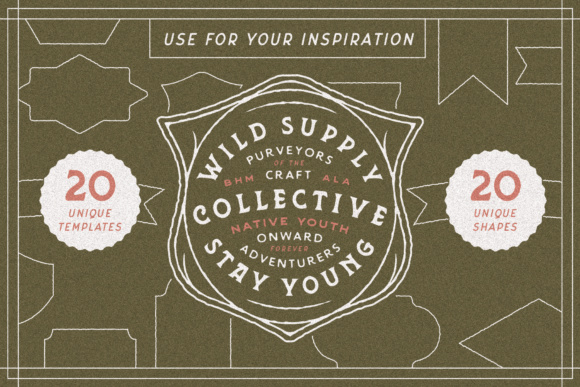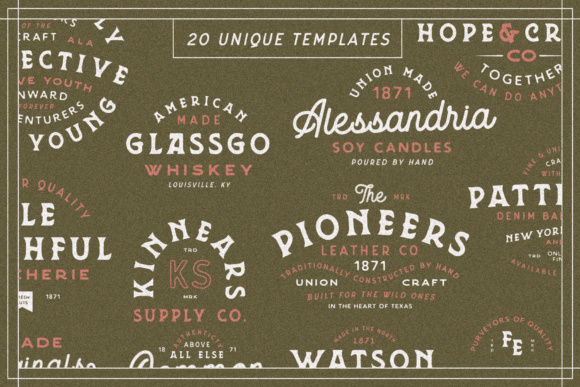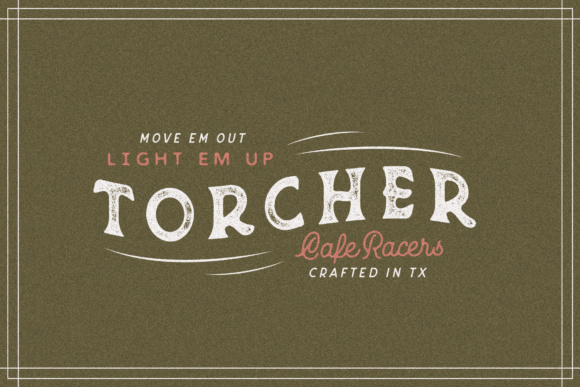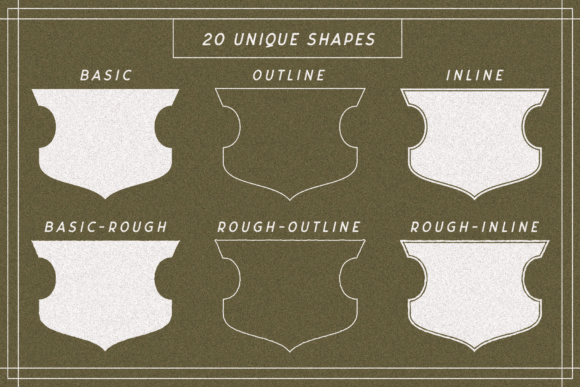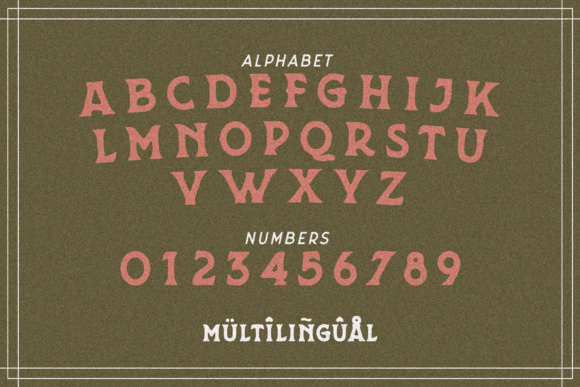
Introduction to Grit & Caliber Font Font
Fonts play a crucial role in design, and the Grit & Caliber Font font is a typeface that brings both character and versatility to any project. Whether you’re working on a branding project, a website, or a print design, the Grit & Caliber Font font offers a unique style that can elevate your work.
Grit & Caliber gives you the tools you need to create vintage-inspired designs.
The main font is crafted from vintage whiskey labels and matchboxes We meticulously created each letter to have that vintage feel you know and that your clients love.
Key Features of Grit & Caliber Font Font
Why Choose Grit & Caliber Font Font?
The Grit & Caliber Font font is more than just a typeface – it’s a design tool that helps you communicate your message with style and clarity. Its unique character set and versatile design make it suitable for a wide range of applications, from elegant invitations to bold headlines.
With its carefully crafted letterforms and balanced proportions, the Grit & Caliber Font font ensures readability and visual appeal across all mediums.
What makes Grit & Caliber Font font special?
The Grit & Caliber Font font stands out with its unique design, exceptional readability, and versatility across various design applications.